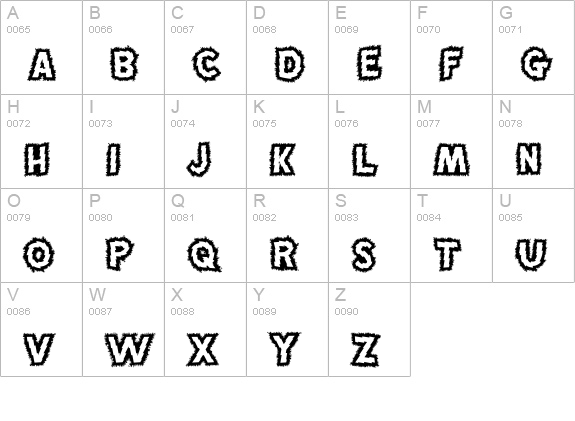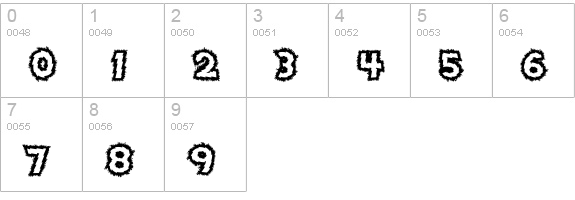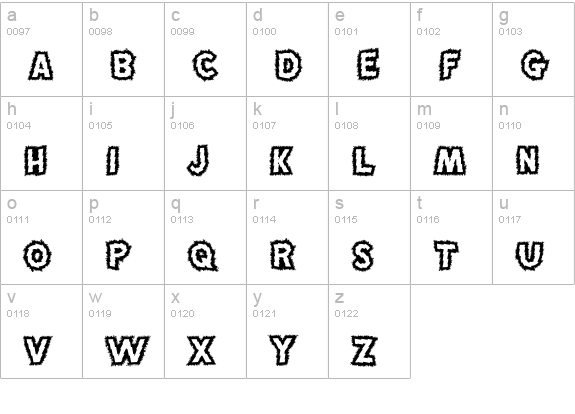
MadScience Font Details
Introducing MadScience font, a captivating and eccentric typeface that will transport your designs to a world of scientific wonder. With its bold and playful letterforms, MadScience captures the essence of experimentation and curiosity, making it the perfect choice for projects that require a touch of unconventional charm. This unique font is freely available to download at FontsMarket.com, where it promises to unleash your creativity without any limitations. Whether you're working on a poster for a science fair, designing an educational brochure, or simply looking to add a touch of whimsy to your personal projects, MadScience is here to inspire and delight. Every character in MadScience font is meticulously crafted, with a balance of sharp angles and fluid curves, creating a harmonious blend of chaos and order. Its distinctive style is reminiscent of vintage laboratory equipment, while still maintaining a contemporary edge, making it a versatile choice for a wide range of design applications. The versatility of MadScience font extends beyond its captivating aesthetics. With its extensive character set, including uppercase and lowercase letters, numerals, punctuation, and special symbols, this font provides endless possibilities for your typographic compositions. Let your imagination run wild as you experiment with different letter combinations and create eye-catching headlines, captivating logos, or captivating social media posts. Whether you're a professional designer or a DIY enthusiast, MadScience font is your ticket to unleashing your inner mad scientist. So why wait? Embrace the spirit of curiosity and exploration with this freely available font at FontsMarket.com, and let your designs take on a life of their own. Get ready to embark on a typographic journey that will ignite your imagination and set your creations apart from the ordinary. Download MadScience font today and let your creativity soar to new heights.